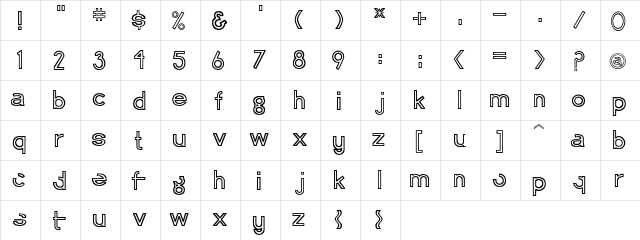
Catastronic Regular
Design Context for Catastronic Typeface
Catastronic takes a measured approach to typography — its balanced proportions and neutral character make it a reliable workhorse for both digital and print work.